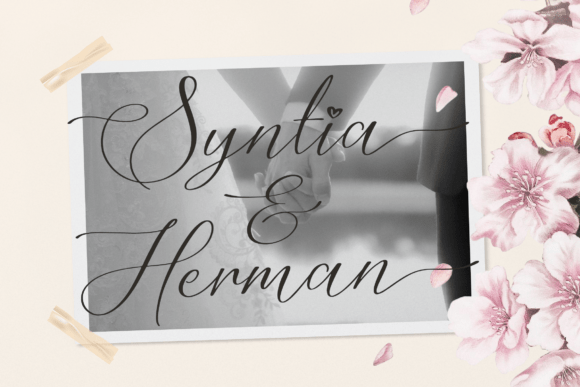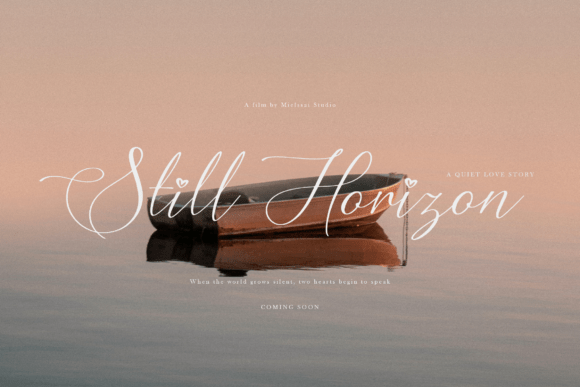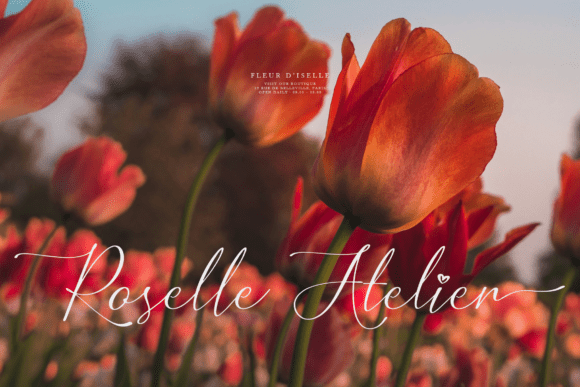
Introduction to Mielssai Font
Elevate your designs with Mielssai, a breathtakingly elegant script font that embodies the essence of β€œbeauty chic.
” Mielssai blends sophisticated calligraphy with a playful, modern twistβ€”most notably through its charming heart-shaped tittles (the dots over the β€˜i’) that add an instant touch of romance Its flowing, rhythmic strokes and delicate ligatures create a natural, hand-lettered feel perfect for high-end branding.